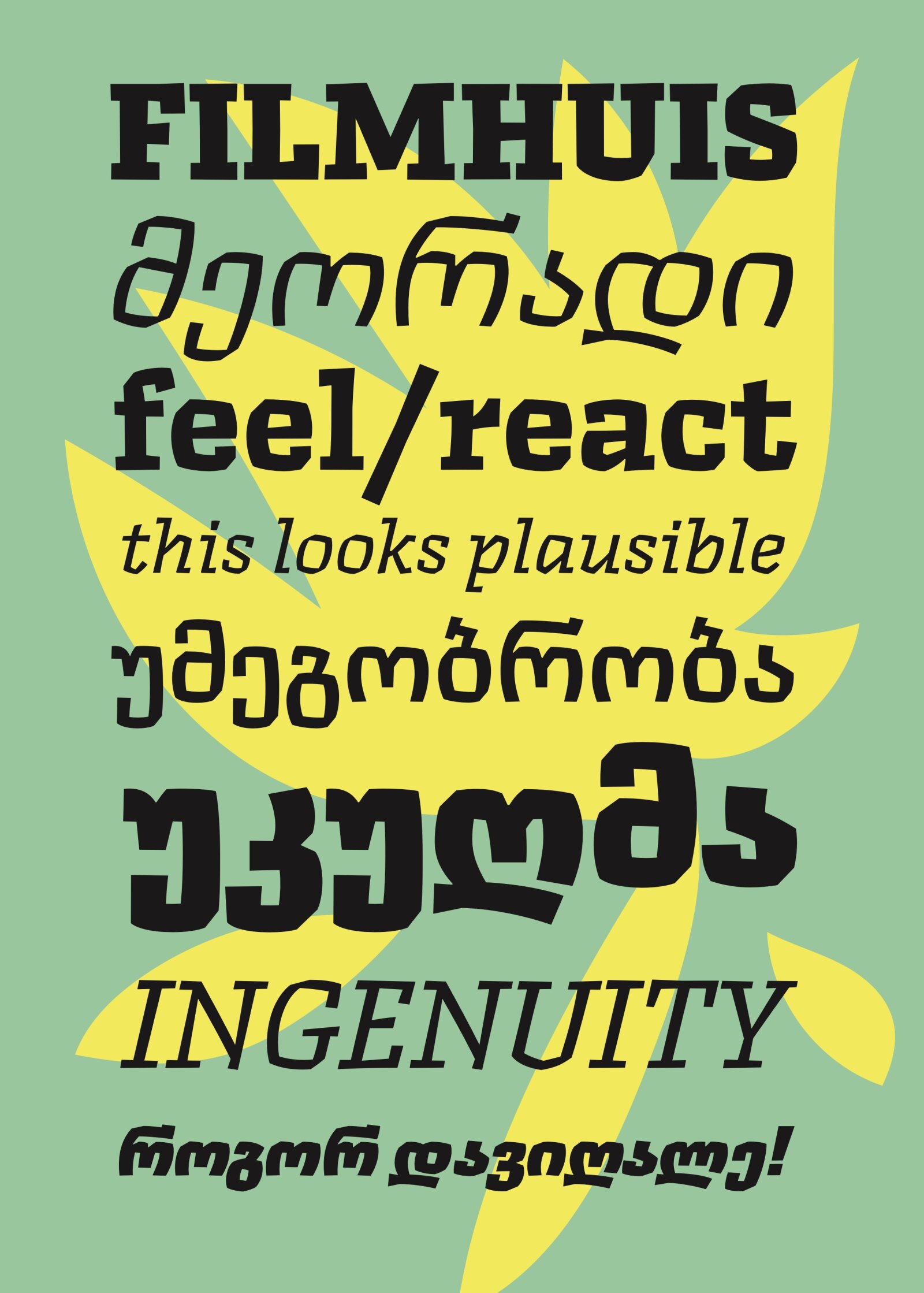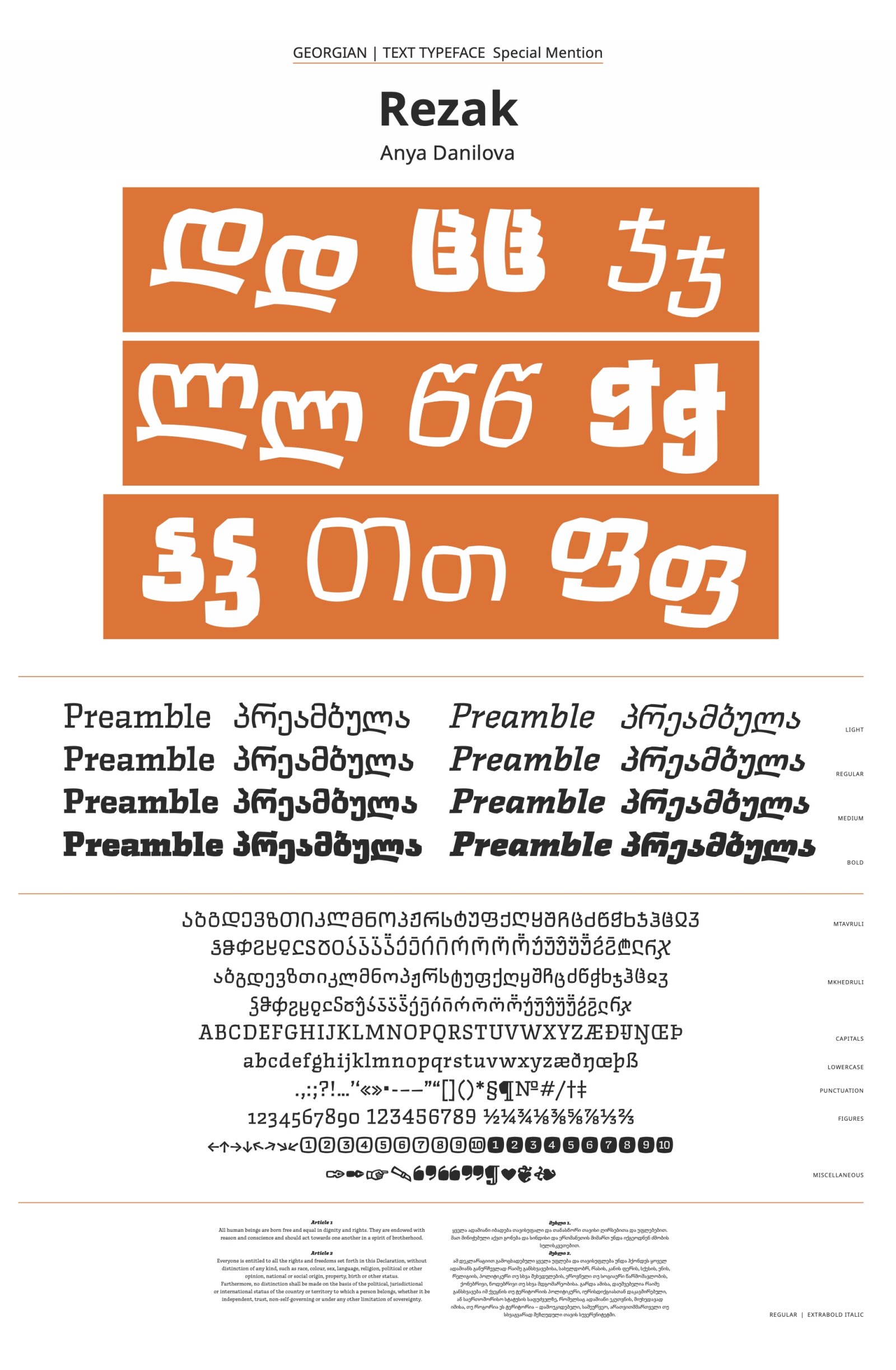
Rezak
by Anya Danilova
Georgian
A "broken" geometric rhythm is boldly introduced in this font, making it an interesting experiment. Despite the promising results at this stage, the font has potential for further refinement.
A typeface was inspired by cutting letters out of a material. With only a few cuts, the shapes remain dark and simple. With more and more cuts, the shapes become lighter and more defined. It started as a student project and for the sake of the concept had a one range between the darkest style (least cuts, sans-serif) and the lightest style (regular, serif). Now, the type family grew into having separate Text styles which are serif, and a complimentary Display styles which are sans-serif. The roughness and irregularity of strokes provide a strong character to a typeface and translating this character into other scripts such as Georgian was not only a challenge but a constant discovery of the possibilities of shapes. Although the strong character of a typeface can limit the ways of using it, text styles have a major glyphset to be used in a broad range of tasks and can be read in text point sizes.